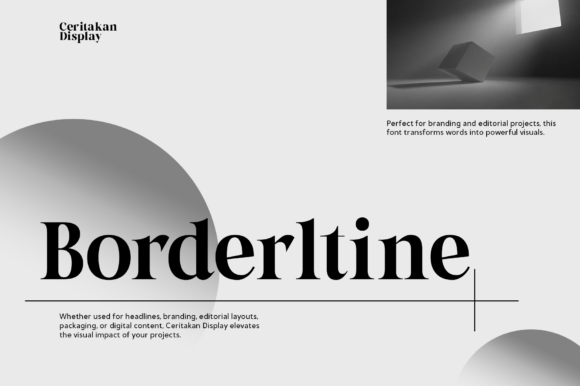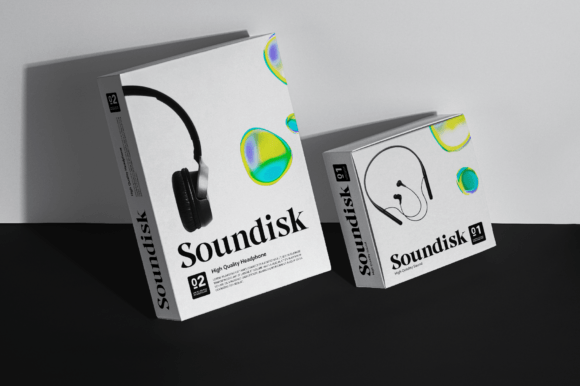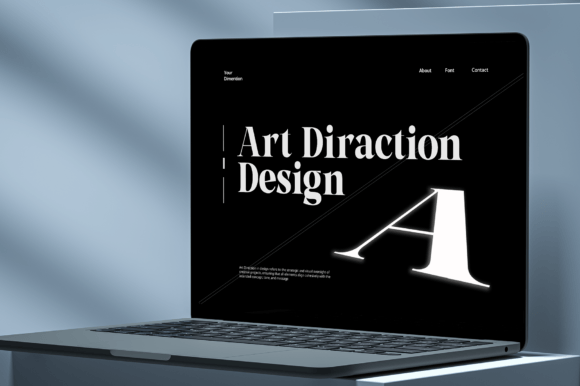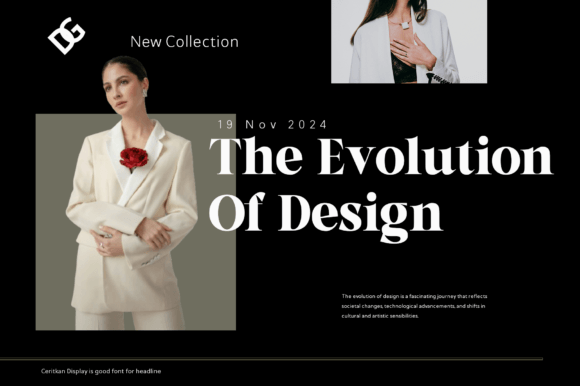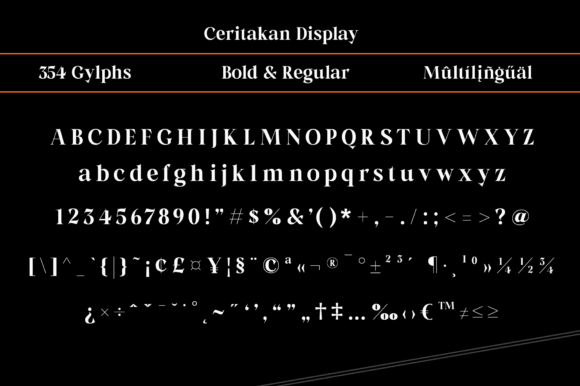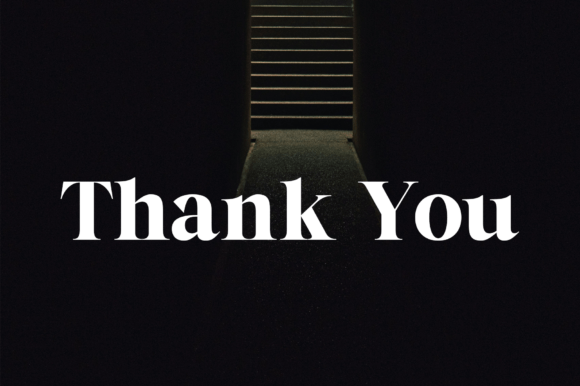
Introduction to Ceritakan Display Font
Ceritakan Display, is a captivating typeface that blends sharp serifs, high contrast, and elegantly refined curves to create a bold and timeless appeal.
Its modern versatility makes it perfect for projects that demand sophistication and visual impact Ideal for branding, editorial design, and elegant presentations, this font strikes the perfect balance between classic aesthetics and contemporary flair.
Key Features of Ceritakan Display Font
Why Choose Ceritakan Display Font?
Ceritakan Display Font offers exceptional quality and versatility, making it a valuable addition to your design toolkit. Whether you’re creating for personal projects or commercial use, Ceritakan Display Font delivers professional results.